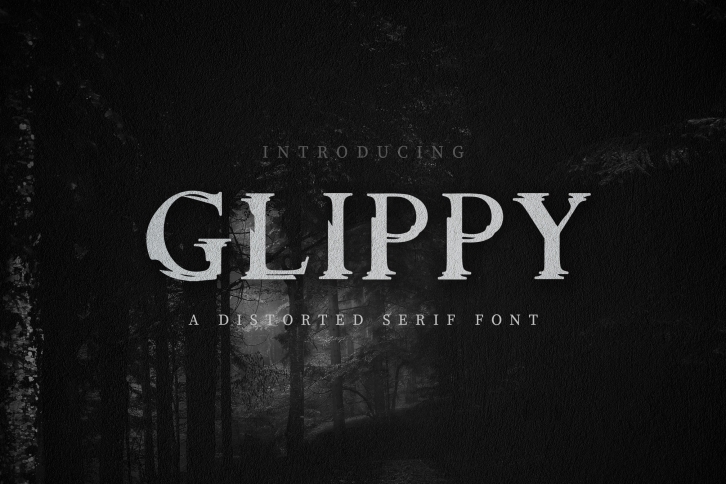
Inspired by industrial and crime scene, Glippy is perfect to use in industrial-themed or horror-themed designs. Glippy is suitable for any project that requires an old and strong feel as the core design elements; such as logo, branding, greeting card, movie poster, product packaging - or a stylish text overlay to any background image.
- Font type with old and strong character
- Uppercase & Lowercase letters
- Numbering and Punctuation